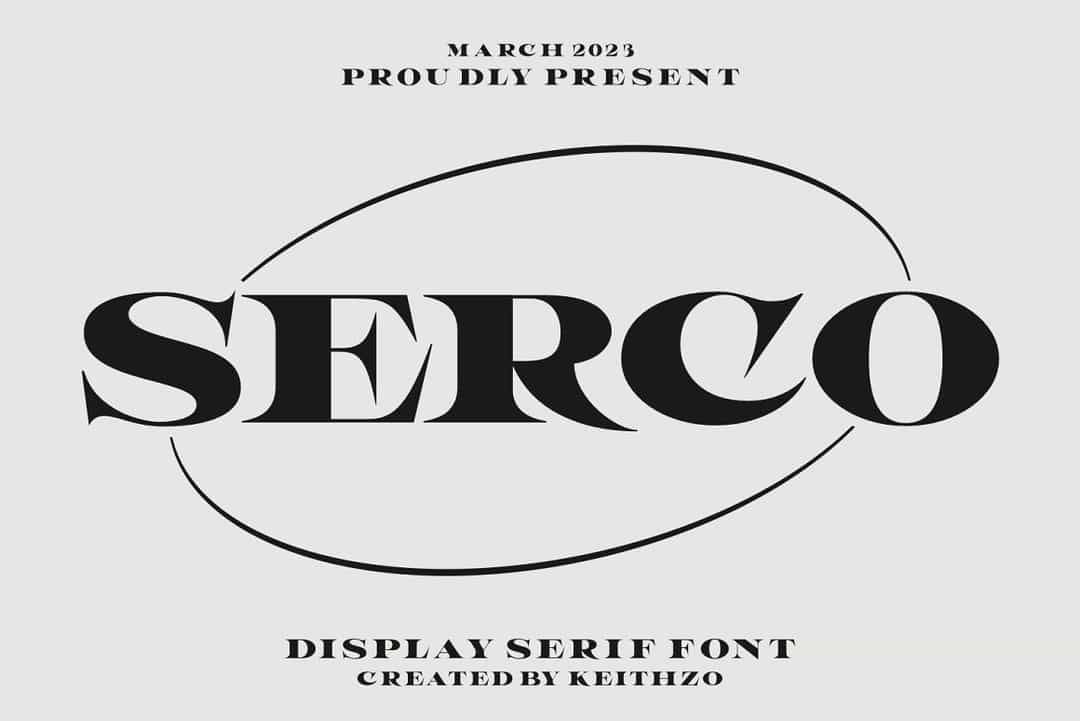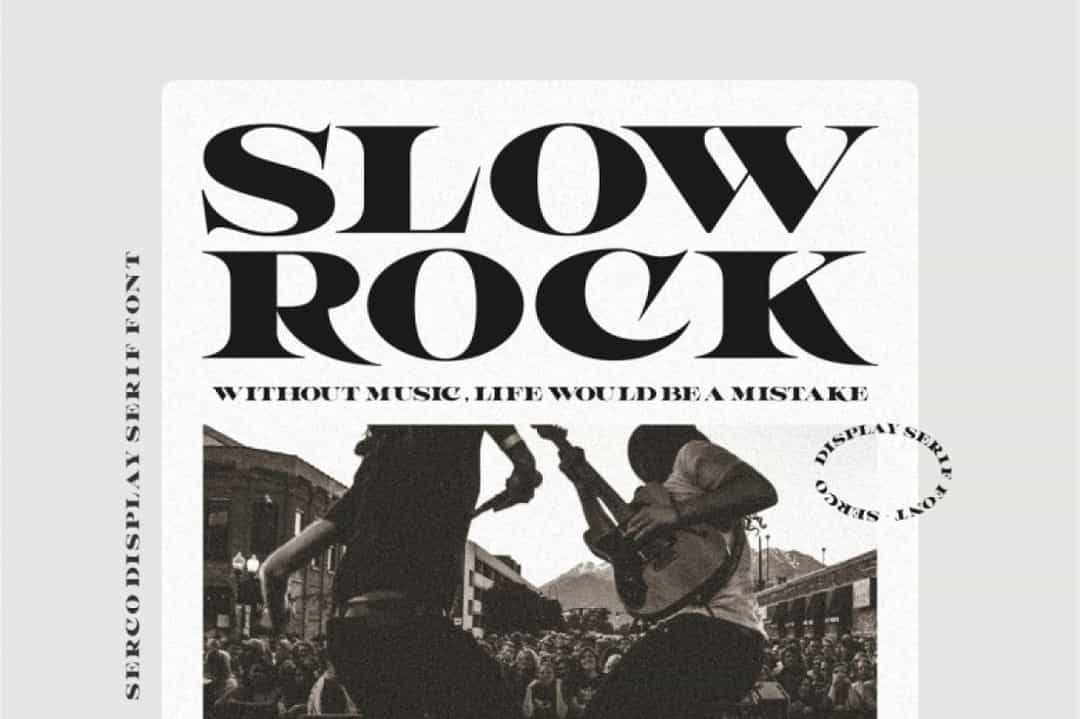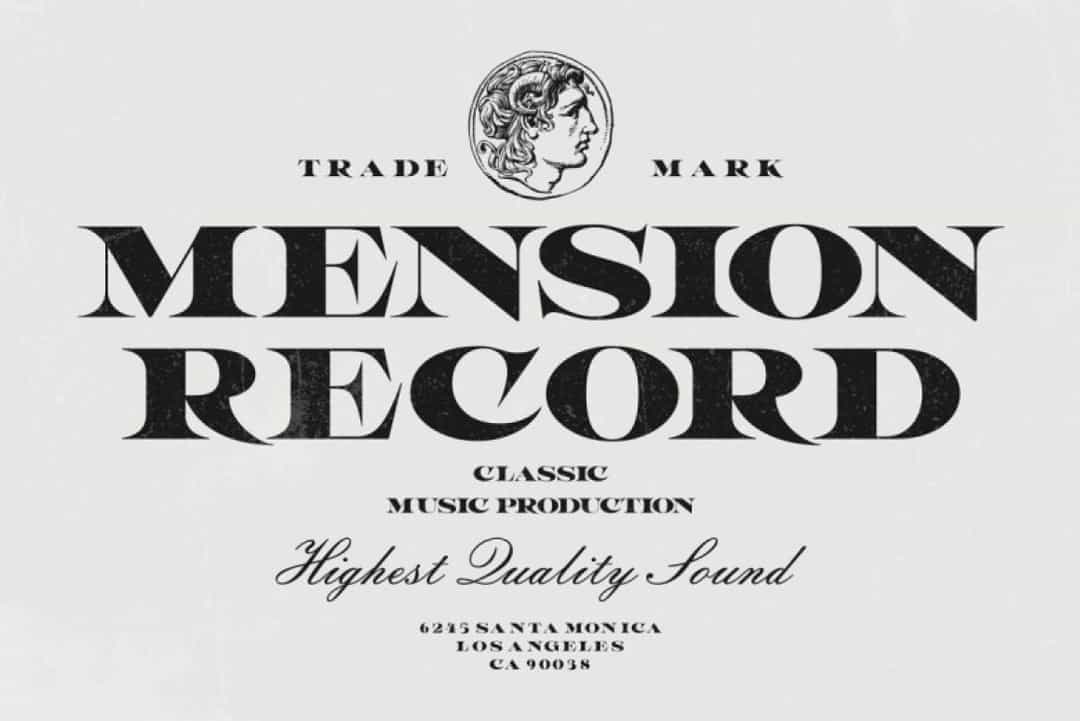
Serco font is an incredibly flexible display all-caps serif font designed for high-end logotypes and magazine headlines alike. Drawing inspiration from Emo/Metal/Metacone music culture as well as streetwear fashion trends and greeting cards; not to mention invitations, book covers, posters ads as well as many screen, web applications, Serco is suitable for high-end logotypes, headlines alike!